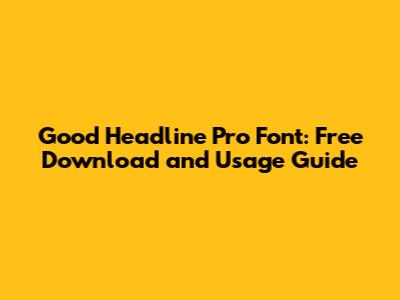
Hey guys! Are you on the hunt for a font that can really make your headlines pop? Look no further! Let's dive deep into the world of Good Headline Pro, a typeface designed to grab attention and add a touch of class to your projects. This guide will walk you through everything you need to know, from downloading the font to using it effectively in your designs.
What is Good Headline Pro?
Good Headline Pro is more than just a font; it's a statement. It's crafted with precision to ensure readability and visual appeal, making it perfect for headlines, titles, and short bursts of text. The font often features a blend of modern and classic elements, providing a versatile option for various design styles. Whether you're working on a website, a poster, or a branding project, Good Headline Pro can elevate your text and make it stand out. Its clean lines and balanced letterforms ensure that your message is conveyed clearly and stylishly. The attention to detail in its design means it works well in both print and digital formats, maintaining its legibility and aesthetic charm across different mediums. In essence, Good Headline Pro is designed to be a workhorse in your font library, ready to tackle a variety of typographic challenges and enhance the overall visual impact of your creations. It’s a font that understands the importance of first impressions and helps you make them count.
Good Headline Pro usually includes various weights and styles, such as regular, bold, italic, and sometimes even condensed or expanded versions. This variety allows you to create a typographic hierarchy and add emphasis where needed. Think of it as your go-to font for creating impactful titles that draw the reader in and keep them engaged. Many designers appreciate its ability to blend seamlessly with other fonts, making it easy to pair with body text for a cohesive and professional look. Furthermore, its character set often includes a wide range of glyphs, including punctuation marks, symbols, and accented characters, ensuring compatibility with different languages and design requirements. By understanding the nuances and capabilities of Good Headline Pro, you can harness its potential to enhance your designs and communicate your message with clarity and style. It's not just about making words look pretty; it's about crafting a visual experience that resonates with your audience.
Using Good Headline Pro Effectively
Now that you have Good Headline Pro installed, let's talk about how to use it effectively. Remember, a great font is only as good as the way it's used. Start by considering the context of your design. Is it for a formal business presentation, a fun social media post, or a creative art project? The tone and style of your design should guide how you use the font. Good Headline Pro is versatile, but it shines best when used purposefully. For headlines, make sure the font size is large enough to grab attention but not so large that it overwhelms the design. Experiment with different weights (bold, regular, light) to create emphasis and visual hierarchy. If you're using the font in body text, ensure the size and spacing are comfortable to read. Avoid using overly decorative fonts for long paragraphs, as they can strain the eyes.
Pairing fonts is an art in itself. Good Headline Pro often works well with simple, clean sans-serif fonts for body text. Think of fonts like Open Sans, Lato, or Roboto. These fonts provide a nice contrast without competing for attention. When choosing a font pairing, consider the overall mood you want to create. A modern sans-serif can give a contemporary feel, while a classic serif can add a touch of elegance. Don't be afraid to experiment, but always prioritize readability. Kerning and tracking are your friends. Adjusting the spacing between letters can dramatically improve the appearance of your text. Tighten the kerning for headlines to create a more compact and impactful look. Increase the tracking for body text to improve readability, especially at smaller sizes. Finally, pay attention to color and contrast. Ensure your text stands out against the background. Use colors that complement each other and create a visually appealing harmony. By mastering these techniques, you can harness the full potential of Good Headline Pro and create designs that are both beautiful and effective.
Examples of Good Headline Pro in Action
To really understand the potential of Good Headline Pro, let's look at some examples of how it can be used in different design scenarios. Imagine you're creating a website for a tech startup. You could use Good Headline Pro for the main headings on your landing page, paired with a clean, modern sans-serif like Open Sans for the body text. The bold, confident style of Good Headline Pro would immediately convey innovation and professionalism, while the readable body text would ensure visitors can easily understand your message. Or, consider designing a poster for a local music festival. Using Good Headline Pro in a large, eye-catching size for the event name would instantly grab attention. You could experiment with different colors and effects, such as gradients or shadows, to make the text even more dynamic. Pairing it with a handwritten-style font for the supporting details would add a touch of personality and creativity.